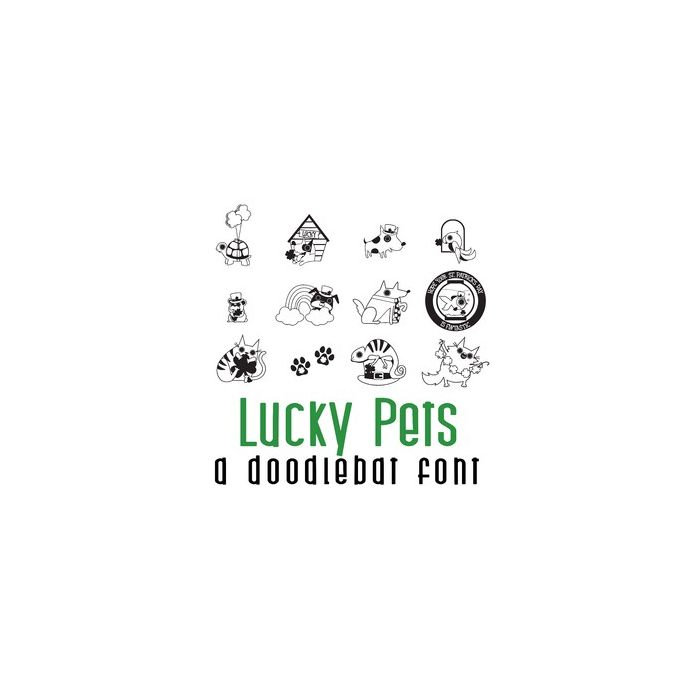
Lucky Pets Doodlebat Font
This adorable doodlebat font features 26 St. Patricks themed pets perfect for cards, crafts, gifts, decor, planner stickers, scrapbook pages and more!